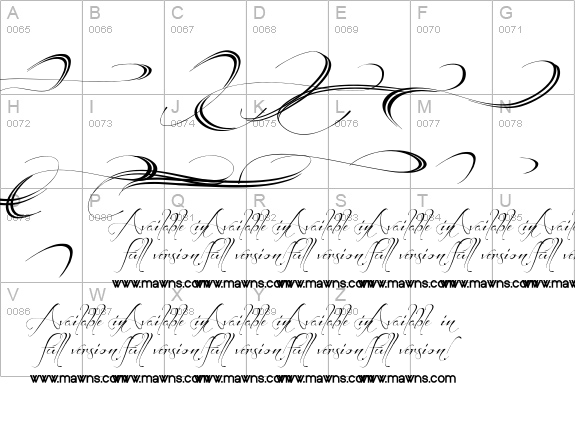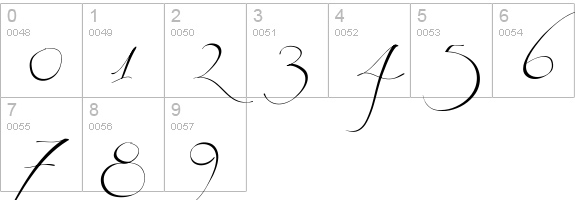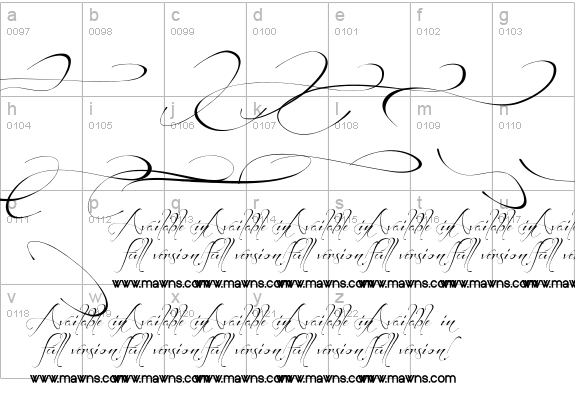
Before the Rain Swashes DEMO Font Details
Before the Rain Swashes DEMO font is a stunning and elegant typeface that will add a touch of sophistication and grace to any design project. With its delicate swashes and intricate details, this font is perfect for creating eye-catching headlines, logos, and invitations. The flowing curves and graceful strokes of Before the Rain Swashes DEMO font give it a timeless and classic feel, while the added swashes add a touch of whimsy and charm. Whether you're designing a wedding invitation, a brand logo, or a book cover, this font will elevate your design and make it stand out from the crowd. What sets Before the Rain Swashes DEMO font apart is that it is freely available to download at FontsMarket.com. Yes, you read that right - this gorgeous font can be yours without spending a dime. It's the perfect opportunity to add a touch of elegance to your design projects without breaking the bank. So why wait? Download Before the Rain Swashes DEMO font today and let its beauty and versatility inspire your next design masterpiece. Whether you're a professional designer or a creative enthusiast, this font is sure to become a favorite in your font library. Don't miss out on this amazing opportunity to enhance your designs with this stunning and free font.